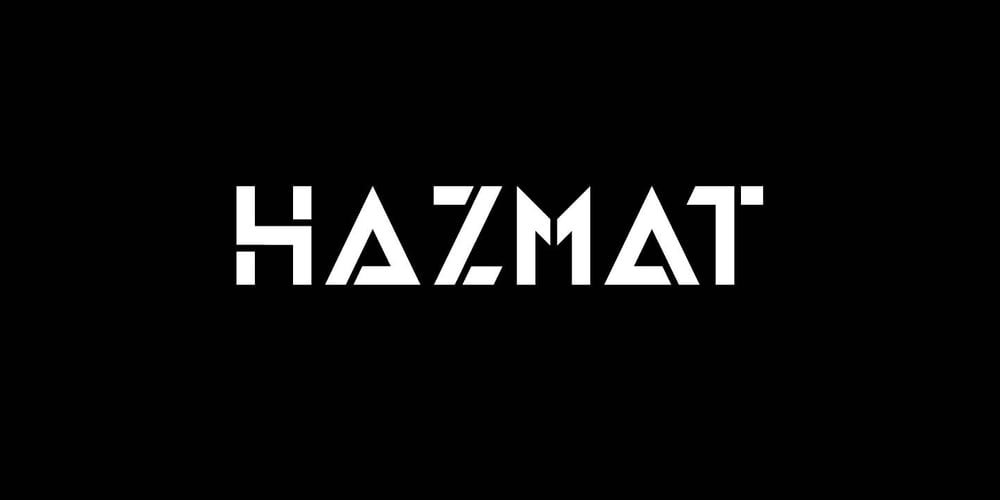
HAZMAT Font Family was designed by Max Little and published by Little Fonts. HAZMAT contains 2 styles and family package options. Inspired by a love of geometry, combined with an obsession with all things stencil type! HAZMAT is a distinctive stencil, using angular characters to give the font an energetic look and feel. Created with the intention to be different from other stencils, the cut of the font has been designed to create eye catching and intriguing displays. HAZMAT works very well at small sizes for legible and detailed typesetting and is equally successful when used at bigger sizes for creating large format, powerful graphics. The font is available in two styles – Regular & Oblique.